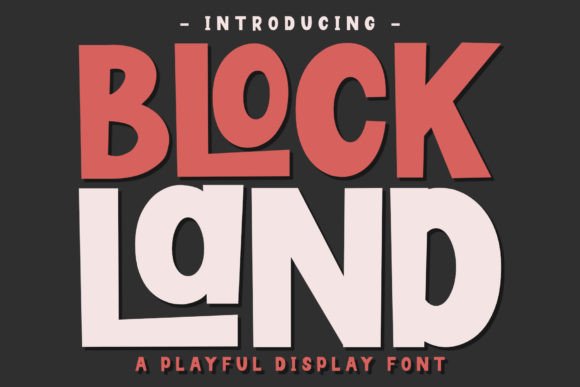
Introducing Blockland Font, the ultimate choice for movie poster enthusiasts! Created by the talented team at Madatype Studio, this sans serif font is guaranteed to elevate your design projects with its bold and playful look.
Blockland Font boasts unique ligatures and alternates, making it stand out from other block display fonts. Its captivating style will instantly catch the eye and leave a lasting impression on your audience.
Are you tired of using the same old boring fonts for your movie posters? Look no further! Blockland Font is here to revolutionize your designs. Its versatility allows it to be used in various design projects, be it posters, flyers, logos, or more.
With Blockland Font, you can effortlessly capture the essence of your movie and convey the emotions it evokes. Its eye-catching appeal will draw viewers in and leave them craving more.
Imagine the impact your movie poster will have with Blockland Font. It will transport your audience into the world of your film, creating an immersive experience like never before.